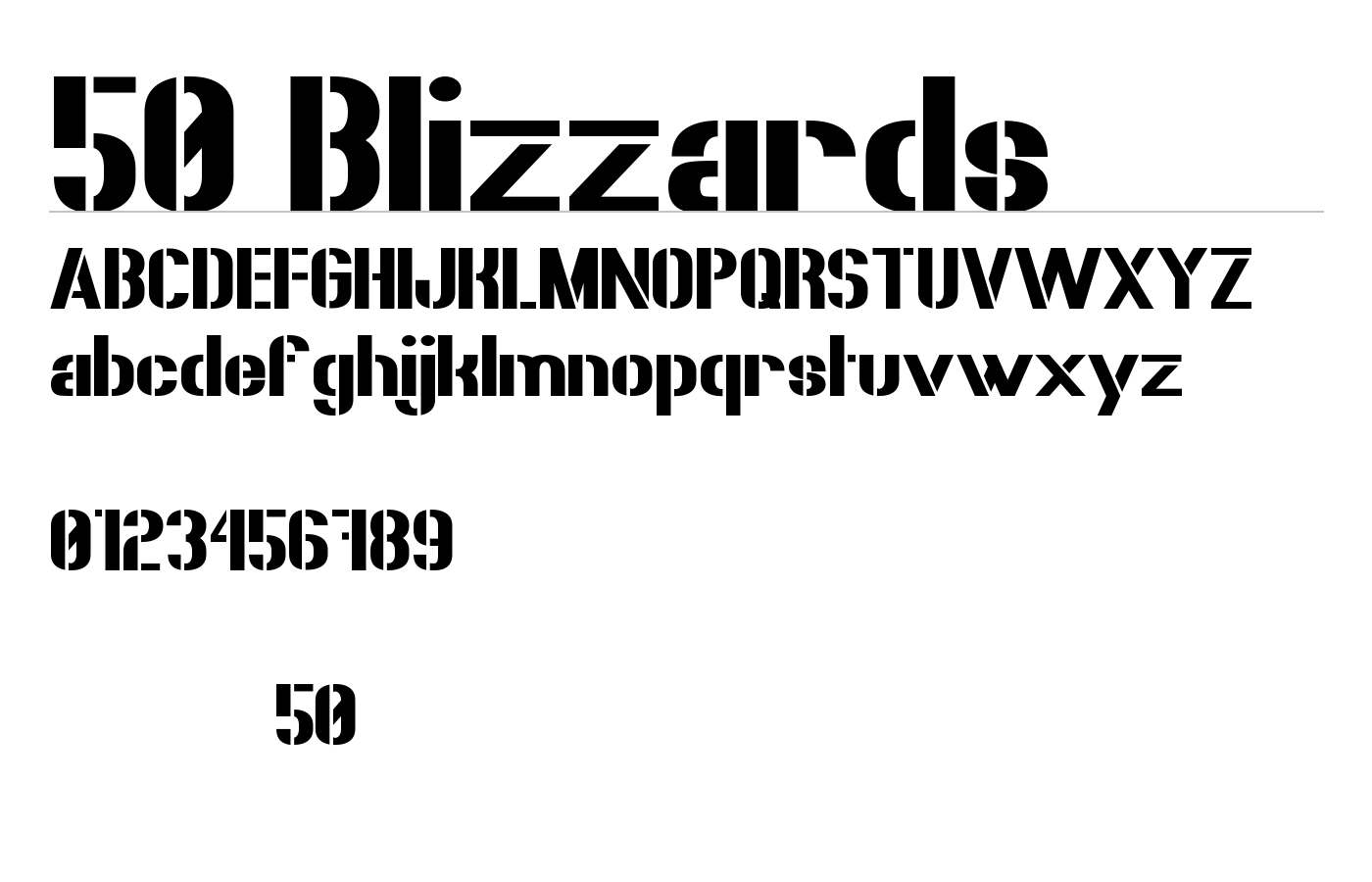
50 Blizzards is a bold, condensed stencil-style serif font that combines strong geometric shapes with high contrast between thick and thin strokes. Its sharp, cut-out letterforms give it a modern, industrial edge while maintaining a vintage spirit, making it perfect for impactful headlines, logos, and display use where a commanding presence is desired. This font works especially well for brands or projects seeking a striking, edgy look with a touch of retro stencil charm.
50 Blizzards Font
About 50 Blizzards Font